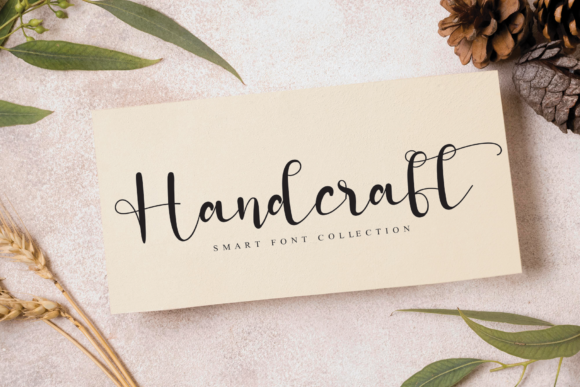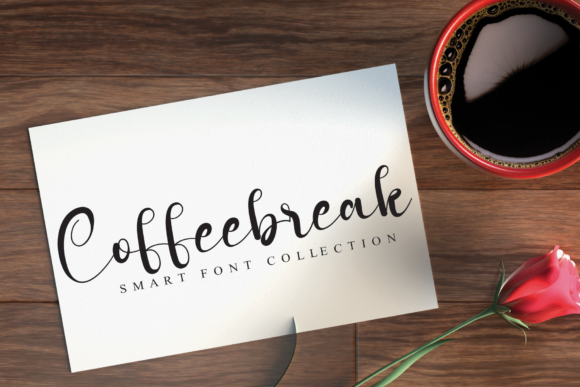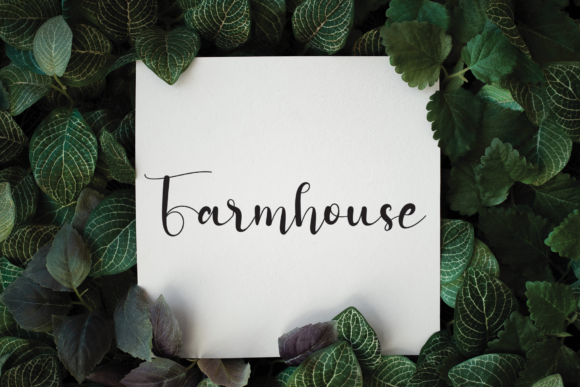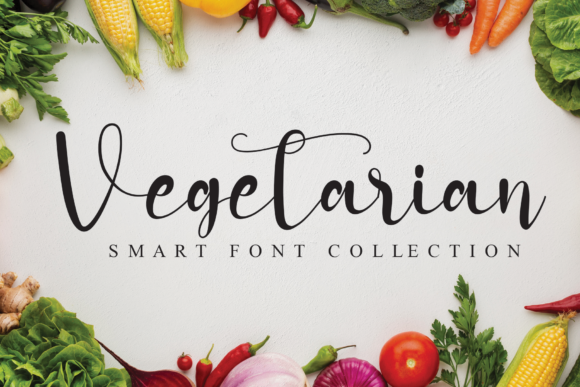
Introduction to Fancyloves Valentine Font
Have you ever been in the middle of a creative project, staring at a blank canvas, trying to find that perfect touch to bring your design to life? It’s a feeling many designers know all too well. But what if I told you that there’s a secret ingredient that can elevate your designs to new heights? Enter the Fancyloves Valentine Font, a stunning handwritten font that’s about to become your new best friend.
With its high-quality design and versatility, the Fancyloves Valentine Font is the perfect addition to any creative project. Whether you’re working on a romantic wedding invitation, a sweet Valentine’s Day card, or a free download for your design resource library, this font is sure to add a touch of elegance and sophistication. And the best part? It’s available for free download, making it an accessible and valuable resource for designers of all levels.
Key Features of Fancyloves Valentine Font
- Unique, cursive script style with a touch of elegance, perfect for creative projects and design resources.
- High-quality font with transparent background, allowing for seamless integration into various design elements.
- Perfect for Valentine’s Day-themed designs, weddings, and other romantic projects, making it a valuable design resource.
Honest Review: Fancyloves Valentine Font
I recently had the chance to work with the Fancyloves Valentine Font, and I must say it’s been a delightful experience. The font is a high-quality design resource perfect for any creative project, especially those with a romantic or festive theme.
- ✨ The font’s intricate details and ornate design elements add a touch of elegance to any text.
- ⚠️ The font may not be suitable for projects requiring a modern or minimalist aesthetic, as its ornate design can be overpowering.
- ⚠️ The font’s size and resolution may not be ideal for large-scale designs or high-resolution prints.
Overall, I’m impressed with the Fancyloves Valentine Font’s unique design and features. It’s a great addition to any designer’s toolkit, especially for those working on creative projects with a vintage or romantic theme.
To get the most out of the Fancyloves Valentine Font, consider using it with a transparent background to add a touch of elegance to your design. You can also experiment with different font sizes, styles, and colors to create a unique look.
The Fancyloves Valentine Font is perfect for various creative projects, including:
- Valentine’s Day cards and invitations
- Wedding stationery and decorations
- Romantic gift tags and labels
- Love-themed social media posts and graphics